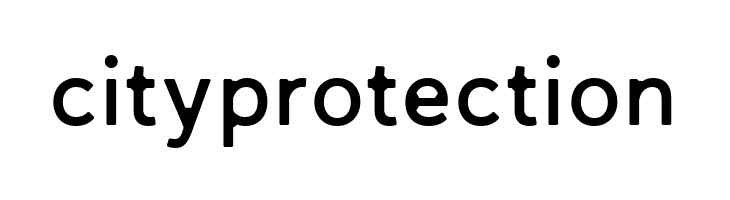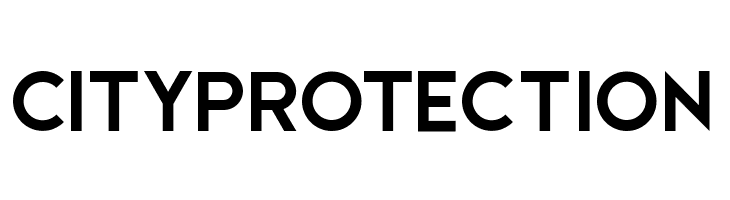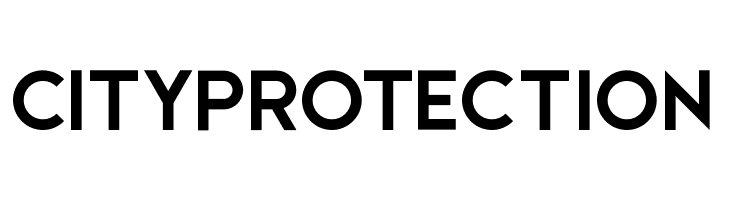
A modern, bold sans-serif font with geometric shapes and uniform strokes.
A modern, bold sans-serif font with geometric precision and high legibility.
A modern, clean sans-serif font with uniform strokes and geometric shapes.